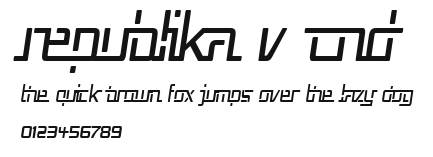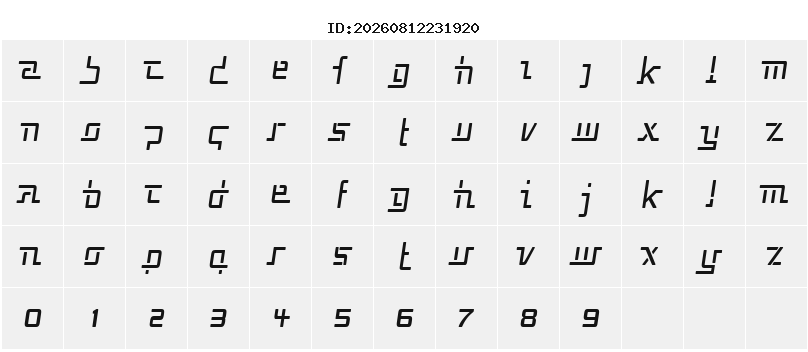
Republika V Cnd Preview
• Font Name: Republika V Cnd
• Font ID: Apostrophe,: Republika V Cnd Italic: 2000
• Full Font Name: Republika V Cnd Italic
• Version: Version 1.0; 2000; initial release
• PostScript Name: RepublikaVCnd-Italic
• Character Count: 260
• Designer: Apostrophe
About Republika V Cnd.ttf
Republika V Cnd.ttf is a modern, elegant sans-serif font designed for ultimate readability and visual harmony. Perfect for branding, headlines, web design, and print materials.